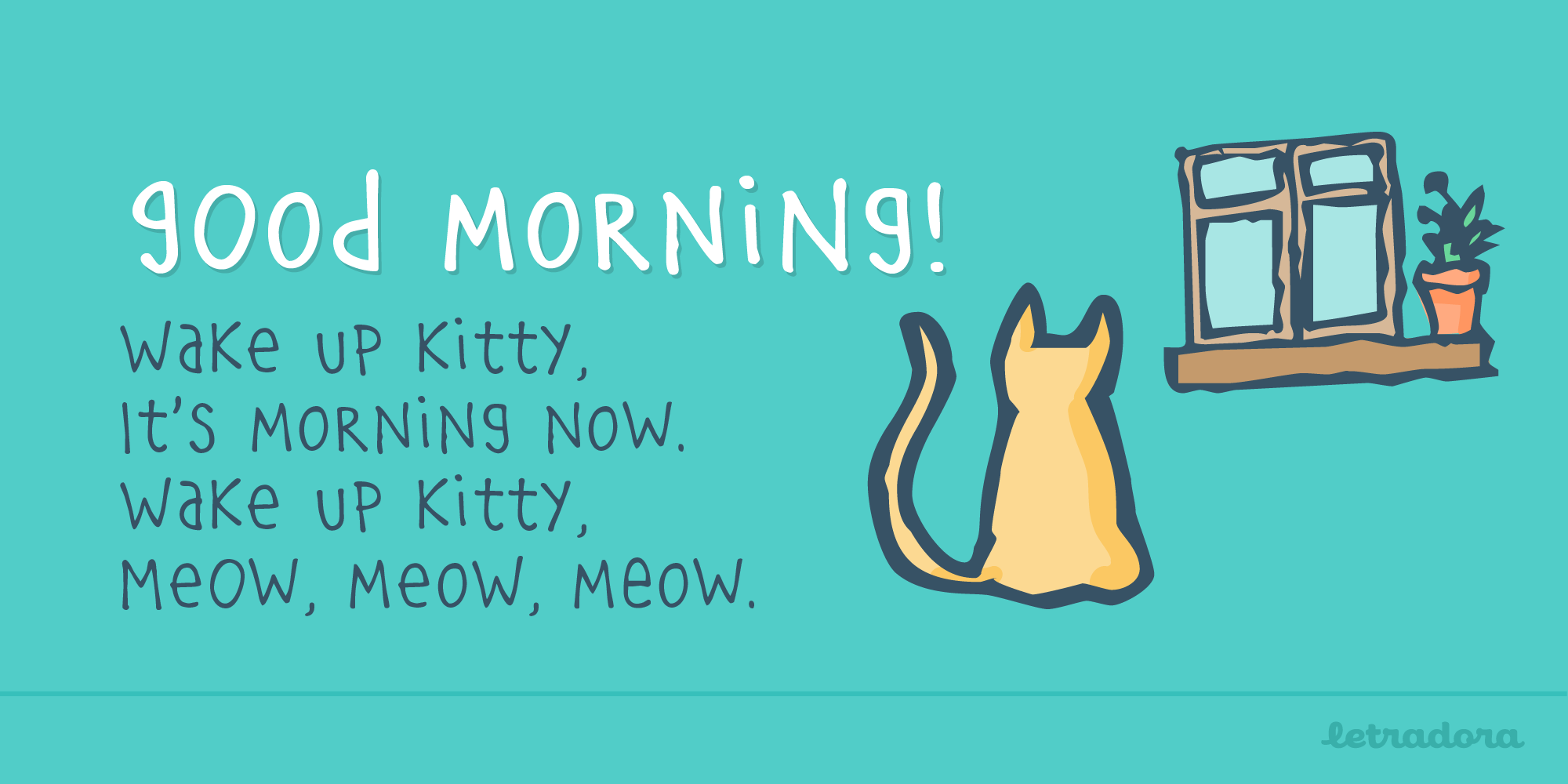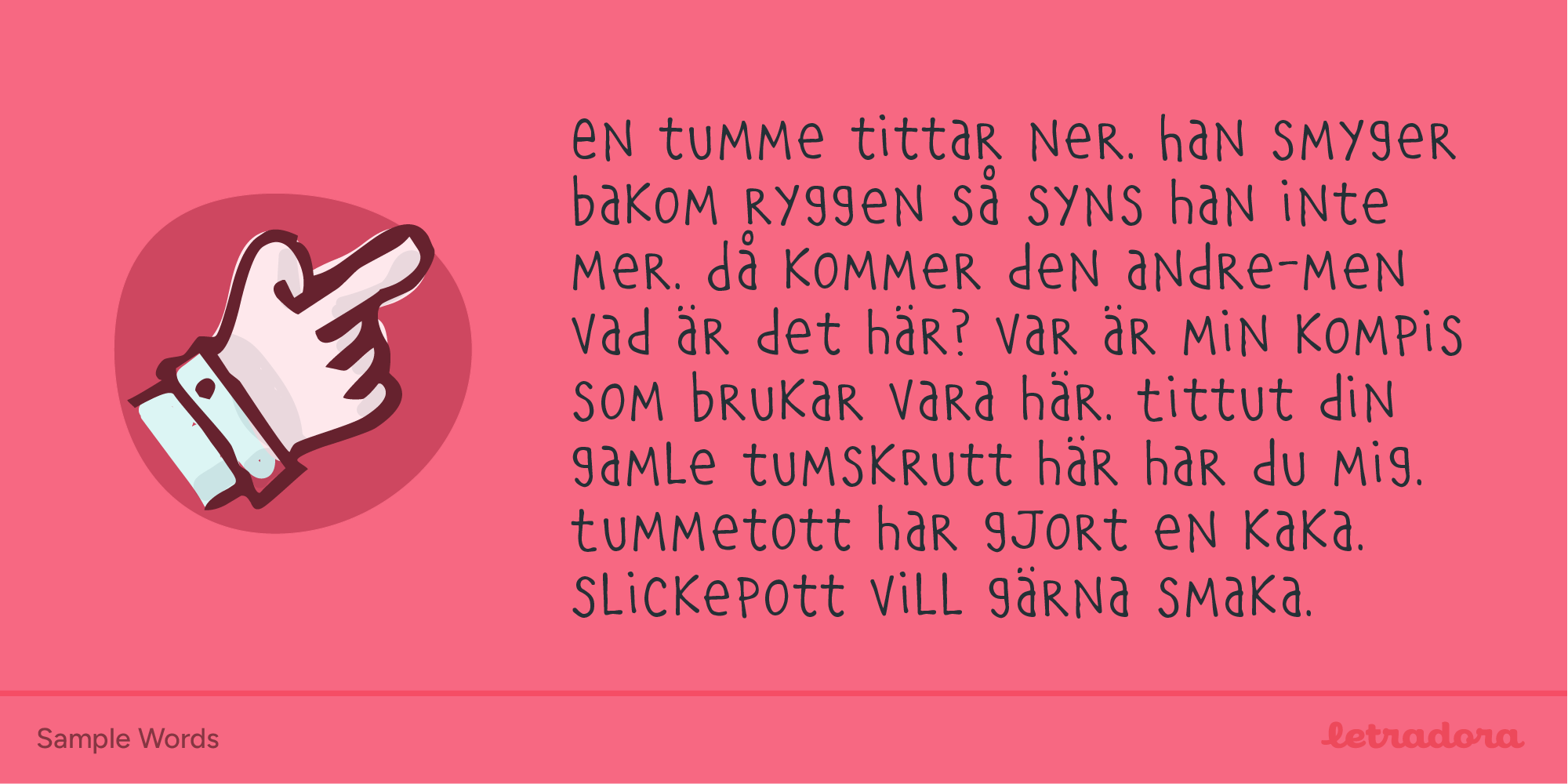
Manita
A quirky unicase comic font
Manita is a quirky, humorous unicase face, reminiscent of comic lettering, based on my friend Onder’s lettering. Supports most Central and Western European scripts. Includes ligatures and several fun dingbats!